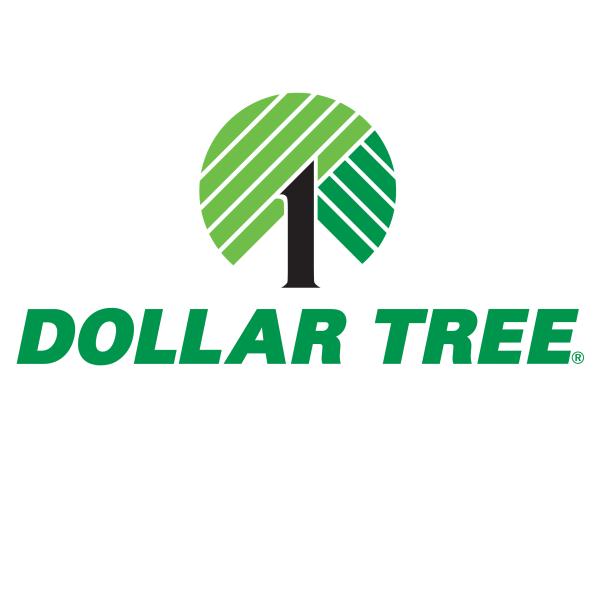
Dollar Tree Logo Font
Fonts in UseDollar Tree is a discount variety store chain that sells items for $1 or less. It was founded in 1986 by Macon Brock, Doug Perry, and Ray Compton and is headquartered in Chesapeake, Virginia, United States.
Helvetica Neue Black Italic, a popular sans-serif typeface is used in Dollar Tree's logo. It was originally created in 1957 by Swiss typeface designer Max Miedinger in collaboration with Eduard Hoffmann.